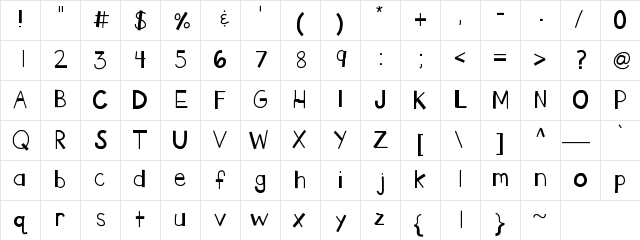
Complete KBTHEENDisBROKEN Medium glyph index. Displaying only characters natively supported by KBTHEENDisBROKEN Medium font.
KBTHEENDisBROKEN is a composed and adaptable typeface that performs quietly and consistently across a wide range of design contexts.